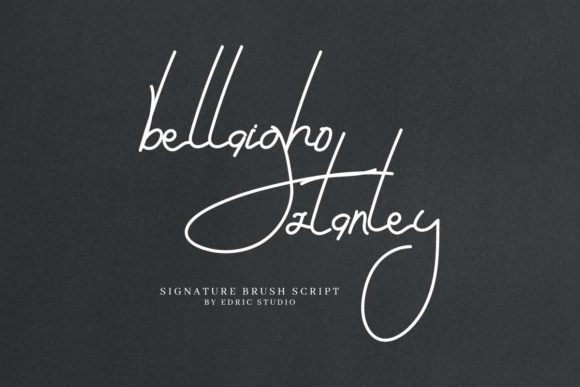
Dive into the world of Bellaigho Stanley, a captivating handwritten font that will transform your design projects into works of art. With its unique characters and timeless elegance, this font is a true masterpiece.
Unleash your creativity and let your designs shine with an authentic calligraphy touch. Bellaigho Stanley is the perfect choice for creating stunning logos, eye-catching branding, personalized invitations, and heartfelt greeting cards.
Imagine your brand standing out from the crowd, with a logo that exudes sophistication and charm. Bellaigho Stanley's intricate details and graceful lines will add a touch of individuality to your designs, making them truly unforgettable.
Step into a world of endless possibilities with Bellaigho Stanley. Its versatility knows no bounds, effortlessly elevating wedding invitations, social media posts, and marketing materials to the highest level. Craft designs that resonate with your audience, leaving a lasting impression that will keep them coming back for more.
With Bellaigho Stanley, you're not just downloading a font; you're embracing a world of creativity and endless possibilities. Its timeless charm and elegant aesthetic will add a touch of magic to every project you undertake.
So, let your imagination soar and embark on a journey of creativity with Bellaigho Stanley. Experience the beauty of handwritten elegance and transform your designs into masterpieces that will leave everyone in awe.